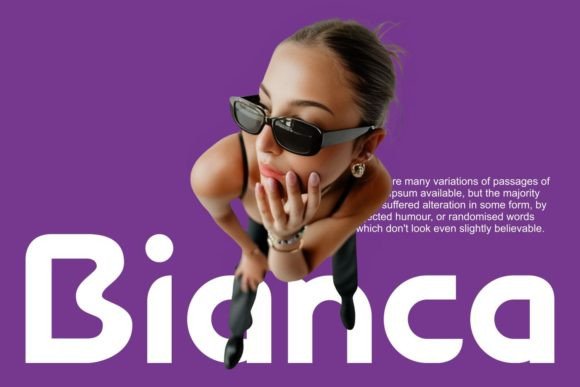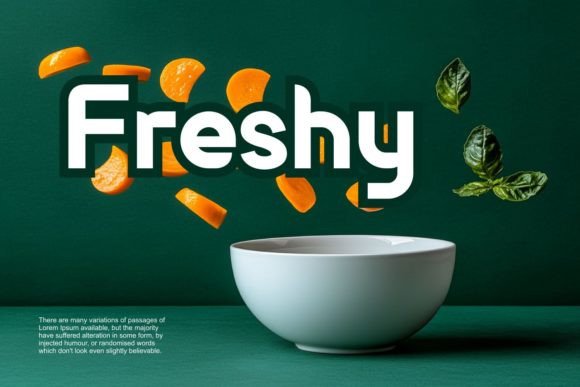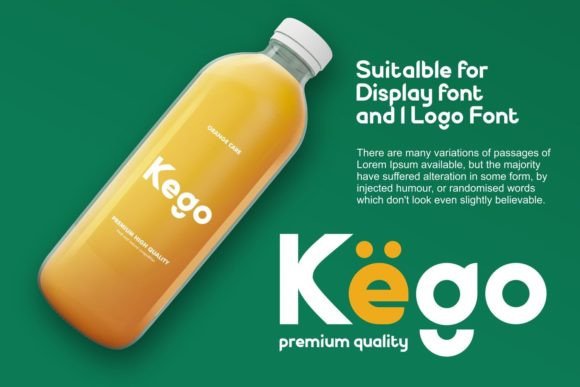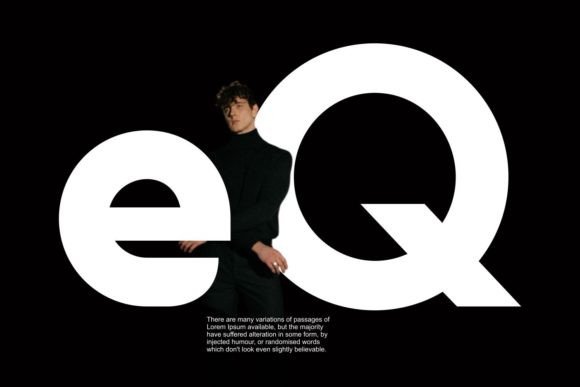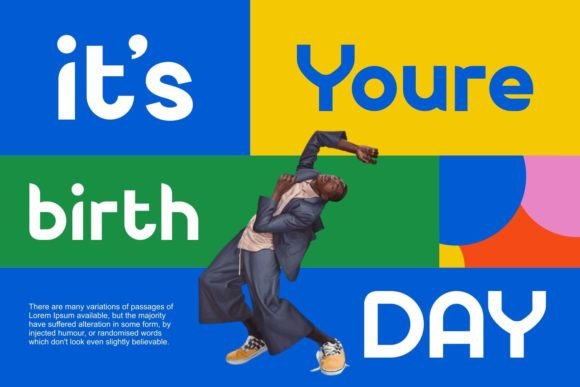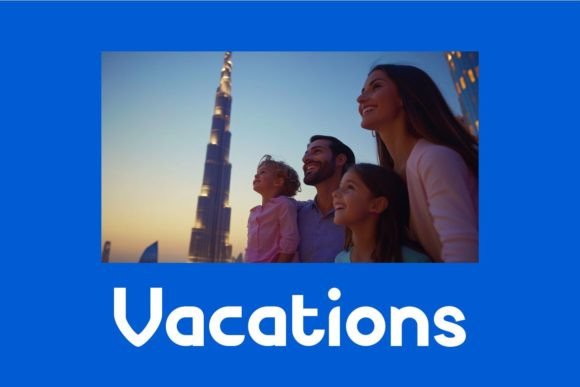
Introduction to Geneo Font
Introducing Geneo – Modern Futuristic Font, the epitome of avant-garde chic designed to launch your digital creations into a new realm of innovation.
The sleek, state-of-the-art aesthetic of Geneo breathes life into your tech-inspired projects, digital masterpieces, and progressive branding endeavors Its bold, unblemished style is the show-stopper in any creative arena.
Geneo Font offers exceptional quality and versatility, making it a valuable addition to your design toolkit. Whether you’re creating for personal projects or commercial use, Geneo Font delivers professional results.